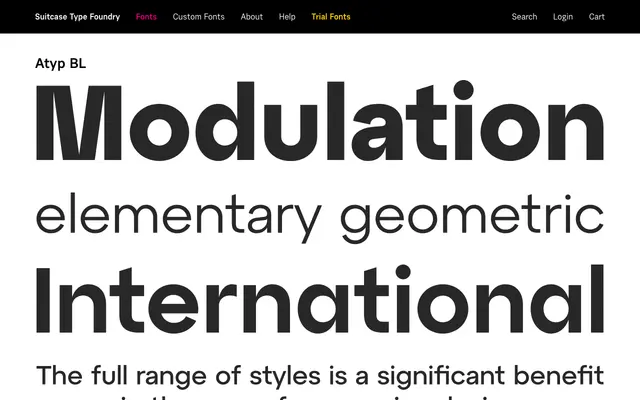
A geometric sans from Suitcase Type Foundry, offered as a distinct stylistic variant within the broader Atyp family.
Part of the Atyp family from Czech foundry Suitcase Type, the BL variant sits alongside the standard Atyp and the child-oriented Atyp Kido as a separate stylistic cut. The page content available is limited, but the family relationship suggests a constructed, geometric approach consistent with the foundry's broader output. Suitable for editorial and branding work requiring a clean, contemporary sans.
The name and foundry context suggest a geometric or constructed sans-serif; the BL suffix likely denotes a specific stylistic variant within the Atyp family, consistent with geometric sans conventions.